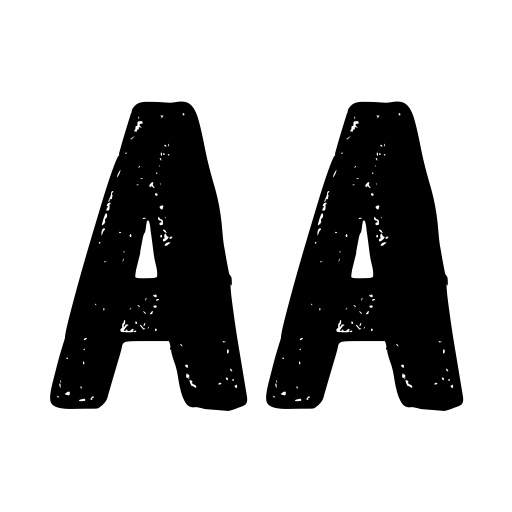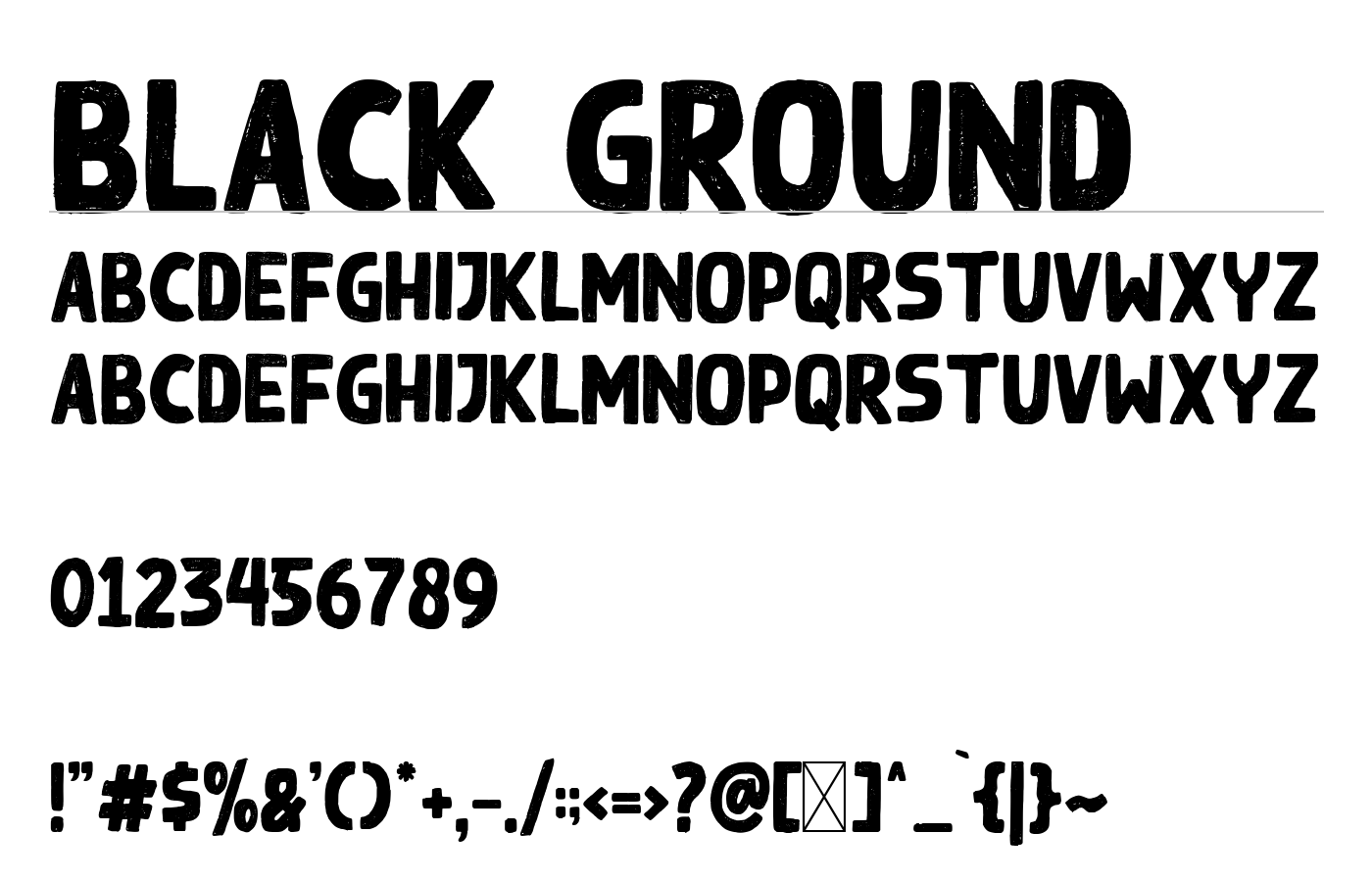
Black Ground is a bold, hand-drawn sans serif font with a textured, slightly irregular finish that adds character and a casual, artistic vibe. Its sturdy, wide letterforms make it perfect for eye-catching headlines and creative designs that want to convey a playful yet confident personality. This font works especially well for posters, branding, and packaging where a handcrafted, expressive touch is desired.
Black Ground Font
About Black Ground Font
| Font family | Black Ground Font |